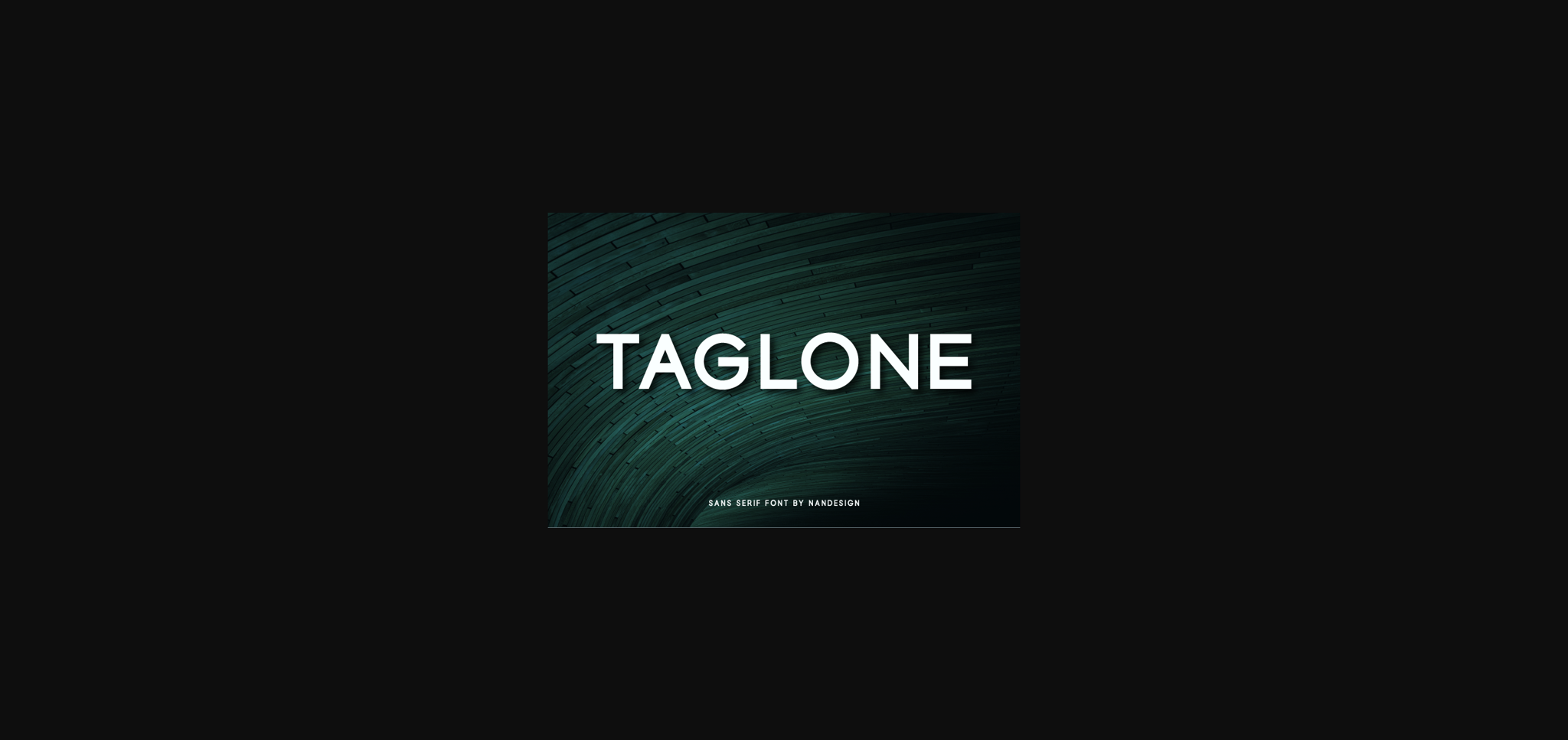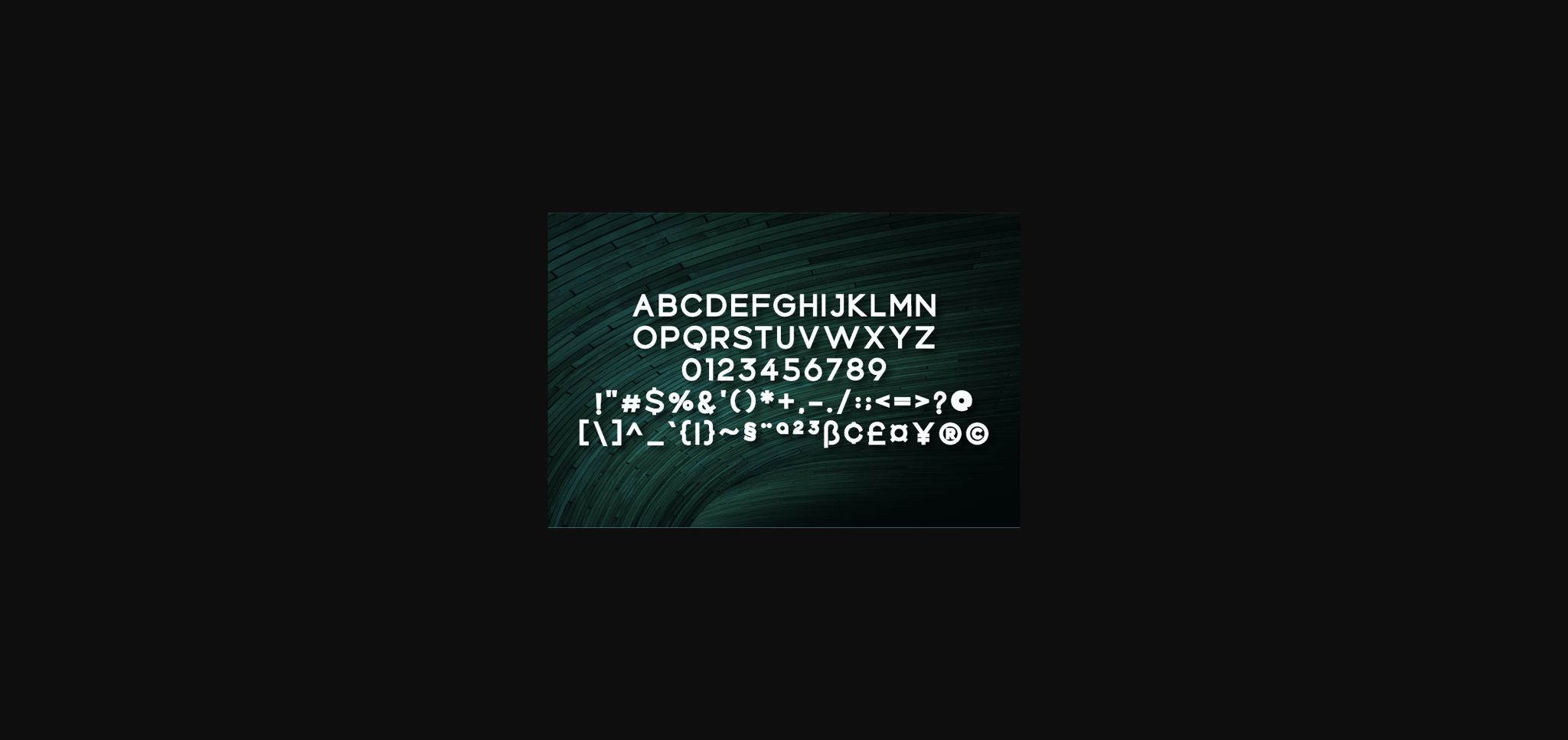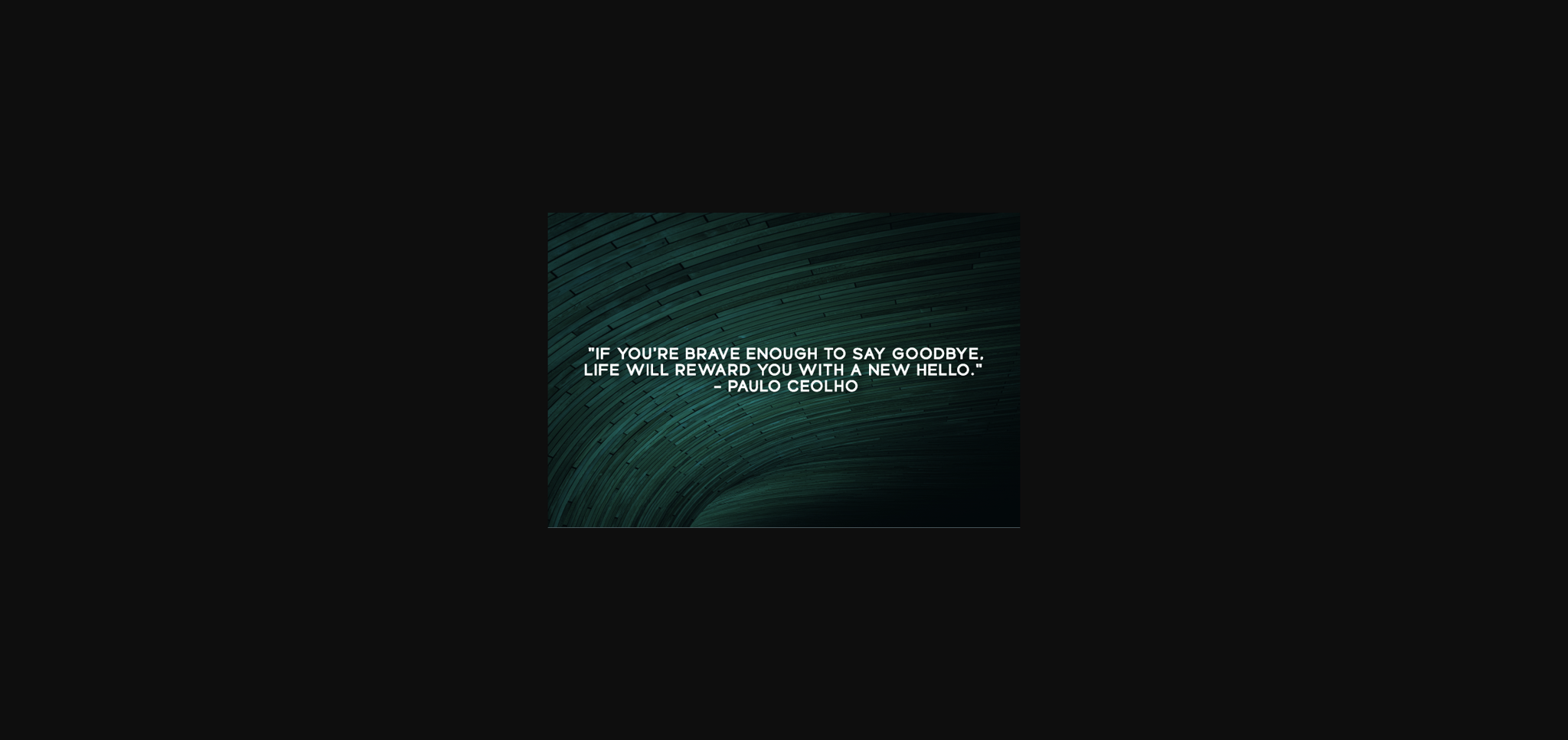
About Taglone Font
Taglone is a bold and simple lettered sans serif font. No matter the topic, this font will be an incredibly asset to your fonts’ library, as it has the potential to elevate any creation.